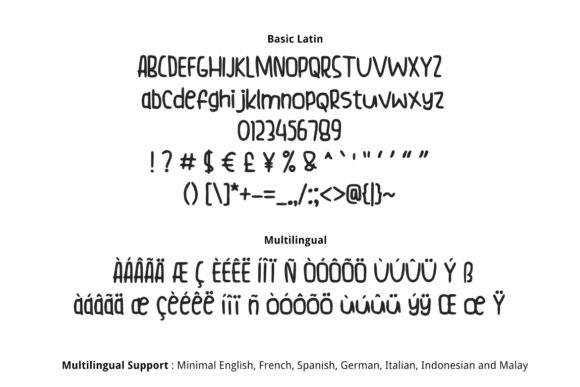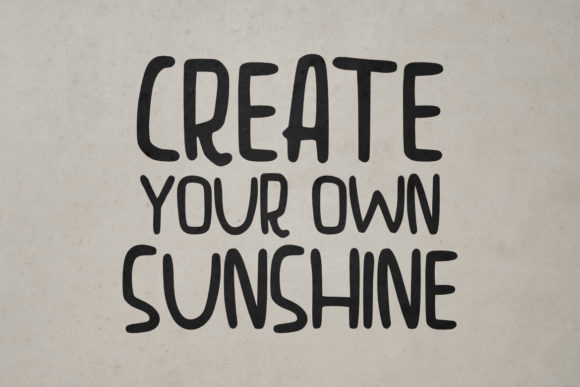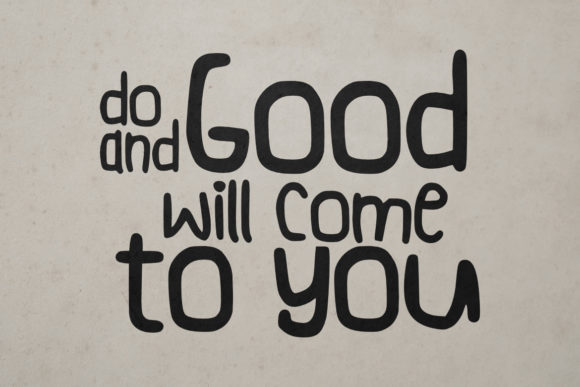
Simple Thing Font
About Simple Thing Font
Simple Thing is a cute handwritten font. This font is the perfect font for making original and outstanding designs.